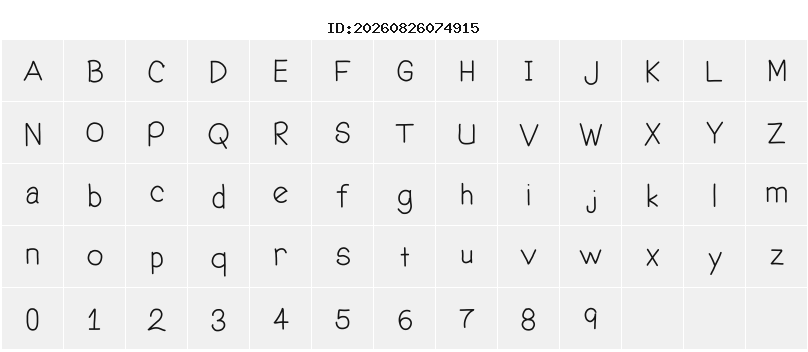
welcome me Preview
• Font Name: welcome me
• Full Font Name: welcome me
• Character Count: 81
About welcome me.ttf
welcome me.ttf is a modern, elegant sans-serif font designed for ultimate readability and visual harmony. Perfect for branding, headlines, web design, and print materials.